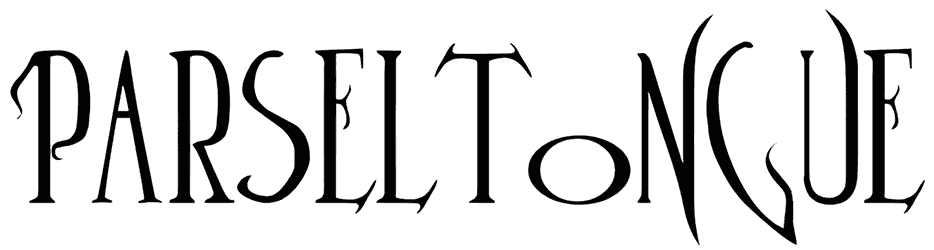
Parseltongue Font
You’ll be surprised to know how easy it is to give your typography a romantic and classy look with just a Victorian font. Parseltongue is the perfect example of it and it gives you a variety of options to use it like wedding invitations, valentine’s cards, fashion magazines headline, and advertisements.
You won’t find the lowercase in this collection instead you find two designs for the uppercase and the rest of the characters. Check it out.